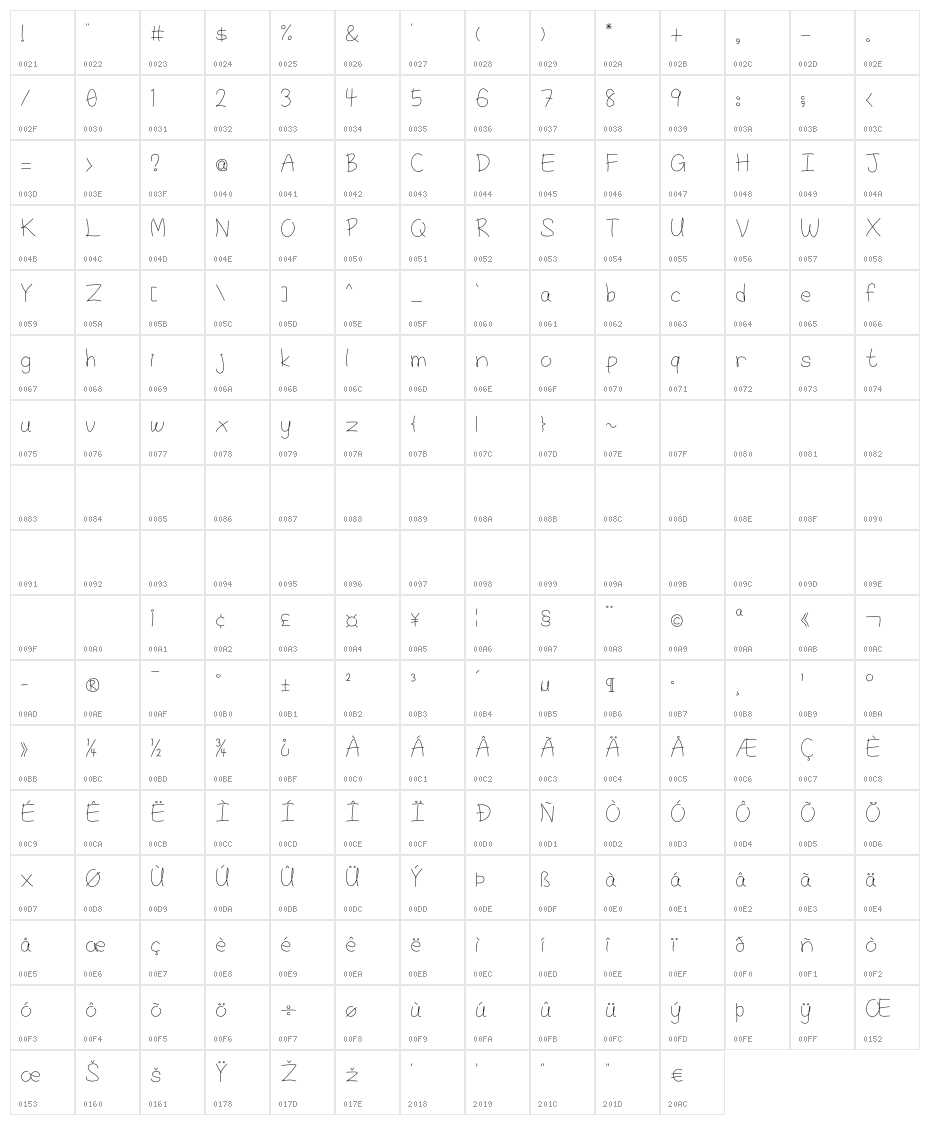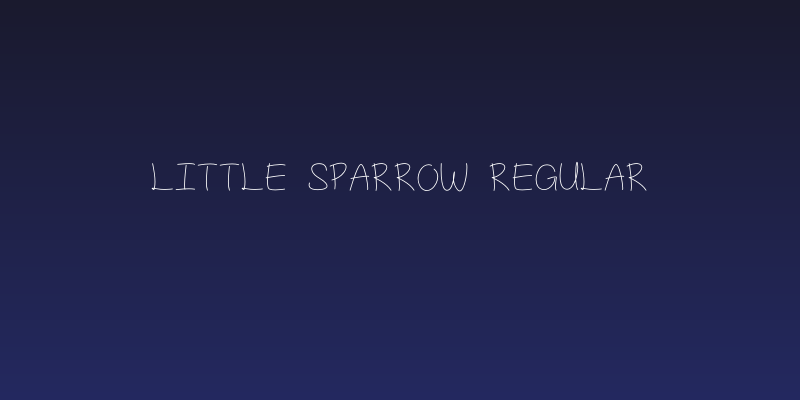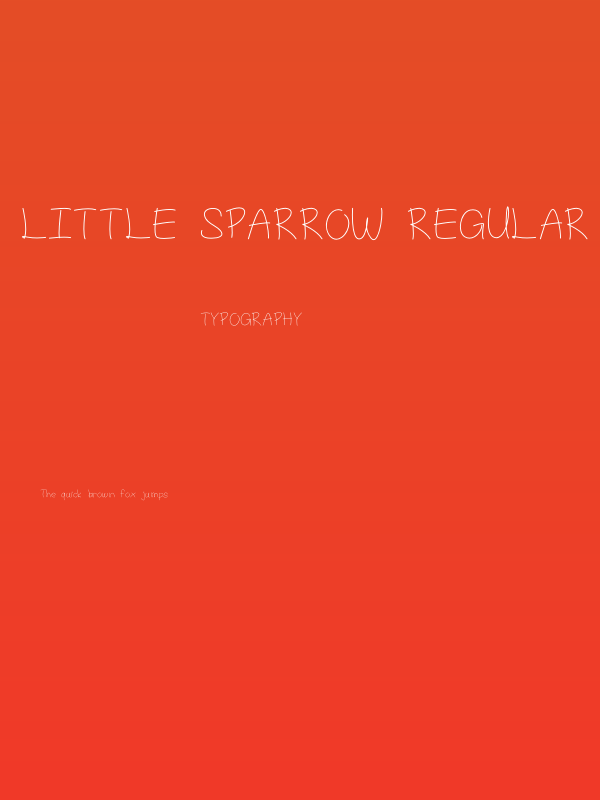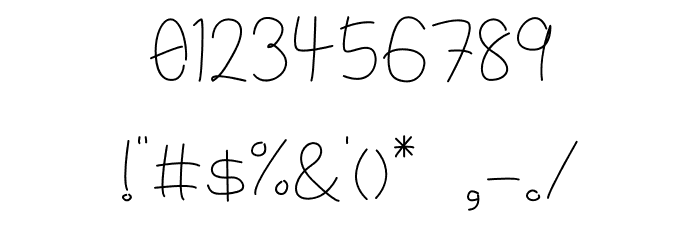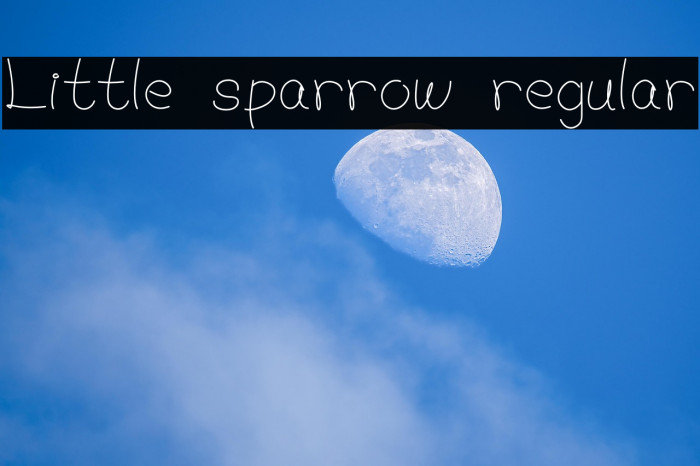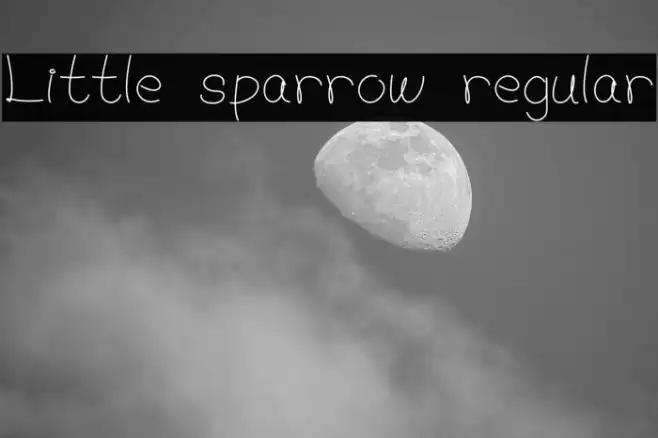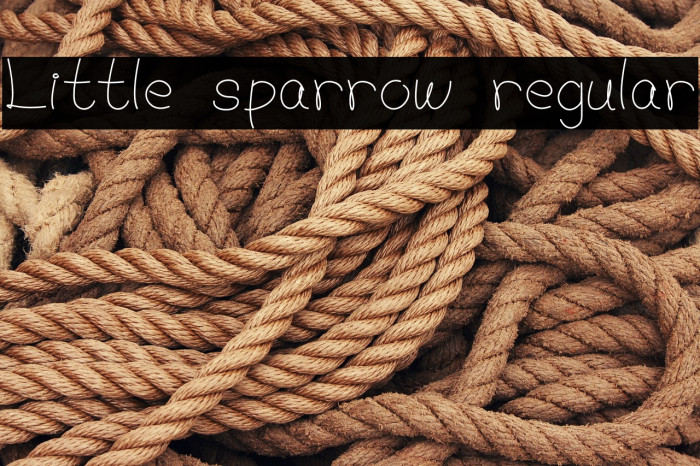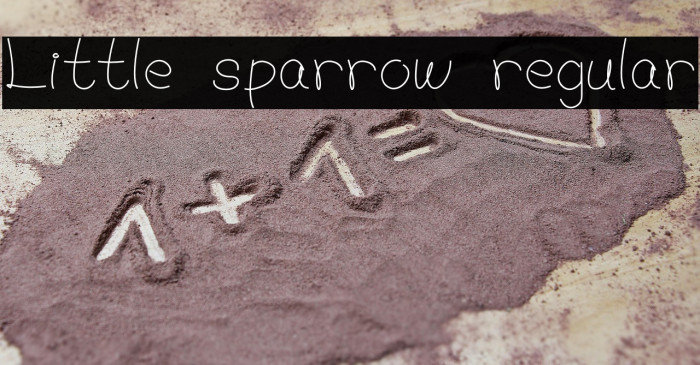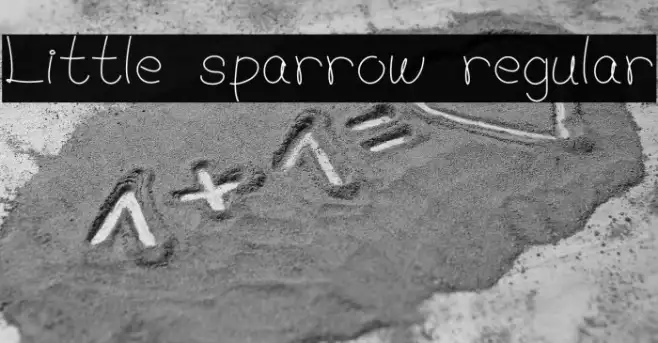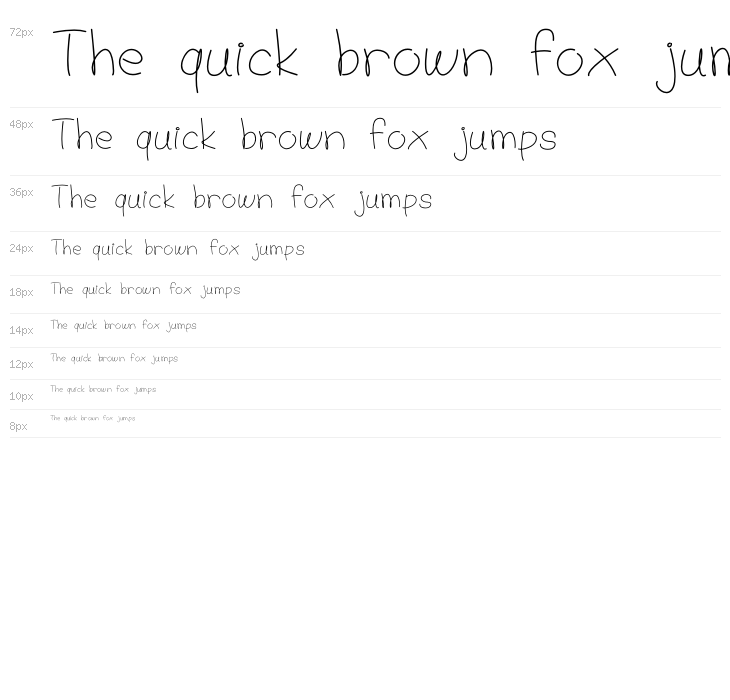
Little sparrow regular Font
Little sparrow regular Description
This font features a playful and whimsical handwritten style, characterized by its thin, consistent strokes and slightly irregular letterforms. The uppercase letters are tall and narrow, while the lowercase letters maintain a casual, flowing appearance. The numbers and special characters are designed to complement the overall style, adding to its charm. The font's simplicity and legibility make it suitable for informal and creative projects, where a personal touch is desired.